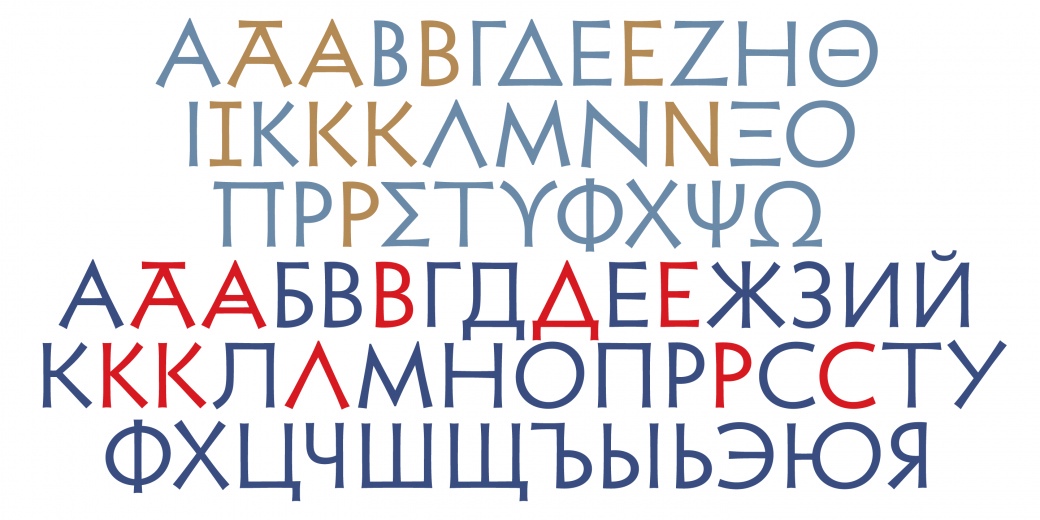
Cadmus Pro Font
Cadmus Pro Font is perfect for professional publishing, academic journal layouts, literary magazine design, scholarly research papers, educational institution branding, professional book typography, cultural publication headers, and intellectual communication materials.
What makes Cadmus Pro Font exciting is its scholarly authority that embodies intellectual rigor and timeless wisdom with classical typography excellence and academic sophistication. The font features refined letterforms with scholarly proportions and intellectual character that evoke ancient manuscripts, university libraries, and the enduring tradition of written knowledge and academic excellence. Its distinctive scholarly styling and intellectual appeal communicate erudition, credibility, and academic excellence, making every message feel grounded in scholarly tradition and elevated by the intellectual authority of academic research and literary sophistication.
The Cadmus Pro Font family includes regular weight with uppercase and lowercase letters, numerals, punctuation marks, and comprehensive academic symbols. Premium versions often feature multiple weights, italics, and scholarly alternates that provide complete typographic solutions for complex academic and publishing applications.
The intellectual character of Cadmus Pro Font makes it particularly valuable for universities, academic publishers, and research institutions. Its excellent readability at extended lengths ensures scholarly content and academic communications remain comfortable to read while maintaining the distinctive academic aesthetic that appeals to educated audiences seeking authoritative sources and intellectual depth.
Academic publishers and scholarly communicators appreciate how Cadmus Pro Font effortlessly conveys intellectual authority and scholarly credibility. The font's refined proportions and academic details create trustworthy educational materials that establish confidence with audiences who value scholarly rigor, intellectual excellence, and the timeless tradition of academic publishing and scholarly communication.
The versatile scholarship of this typeface extends to cultural foundations, research think tanks, and intellectual property firms where academic authenticity enhances institutional credibility and scholarly appeal. Cadmus Pro Font Free Download provides creative professionals with an essential tool for developing memorable, authority-driven designs that resonate with audiences who embrace academic excellence, scholarly tradition, and the enduring power of intellectual typography in serious academic and literary communication.